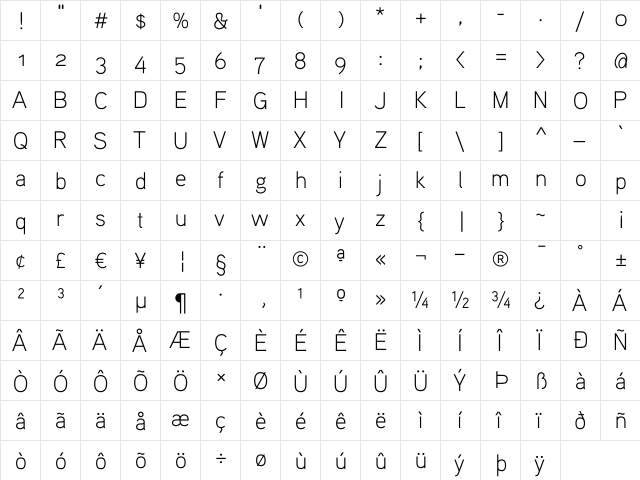
Aaux ProLight OSF Regular
Design Context for Aaux ProLight OSF Typeface
Aaux ProLight OSF takes a measured approach to typography — its balanced proportions and neutral character make it a reliable workhorse for both digital and print work. Its slender proportions lend an understated elegance to any composition.